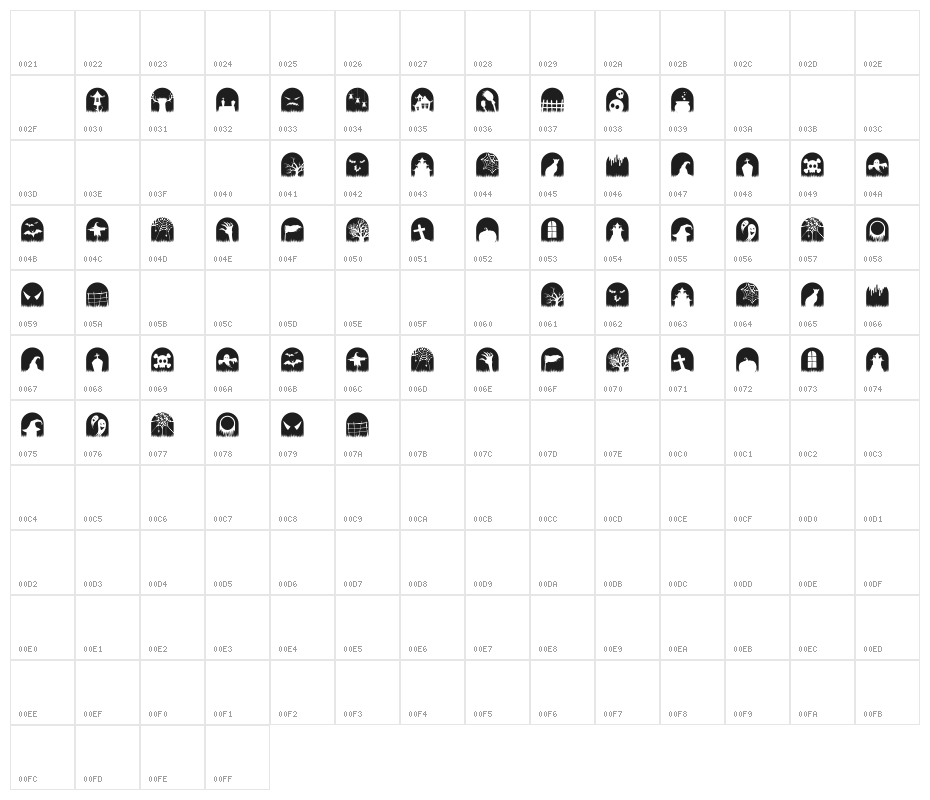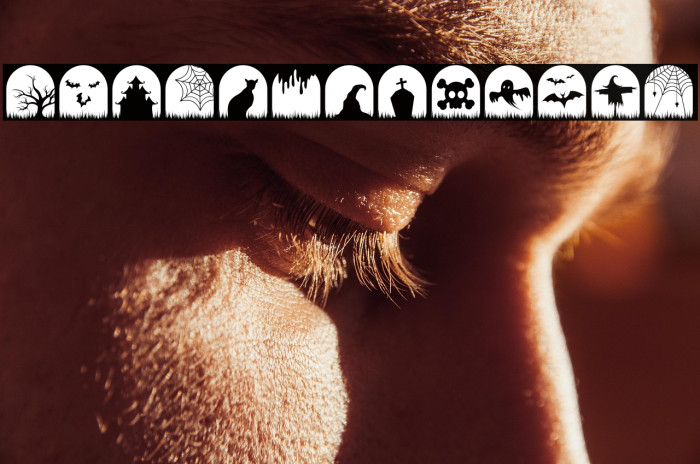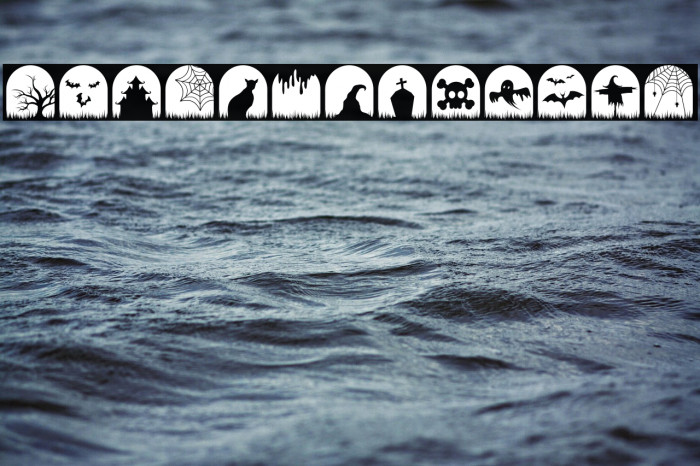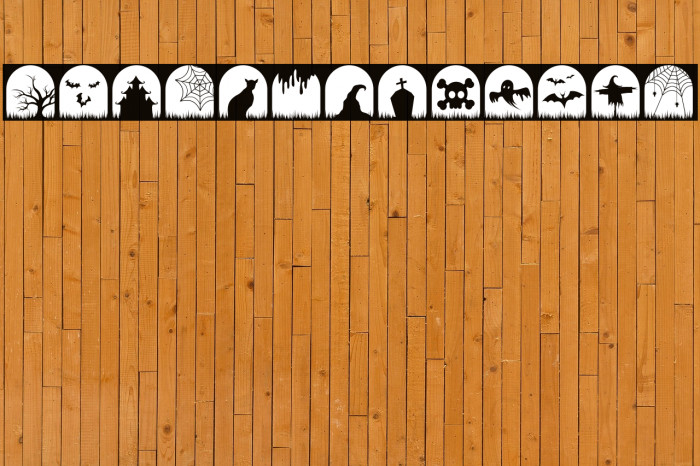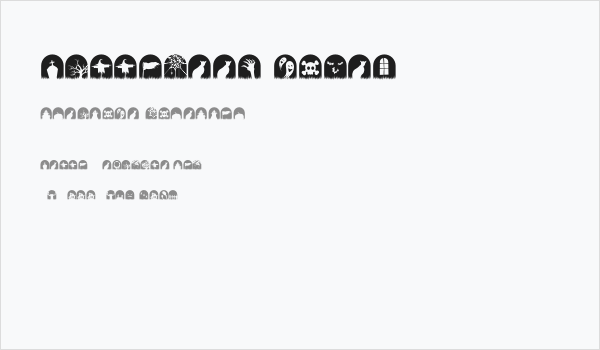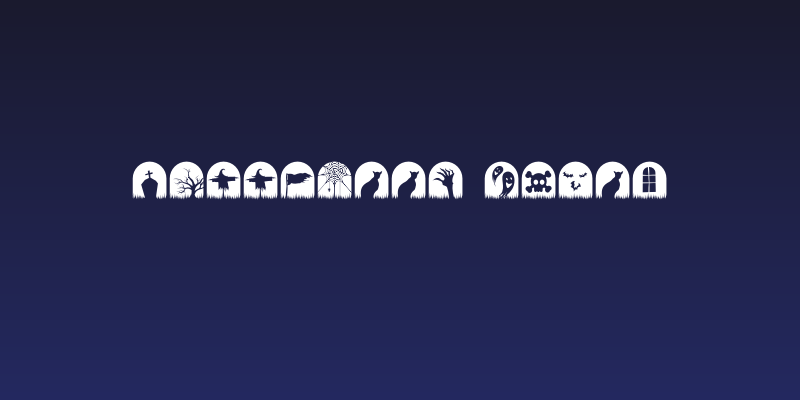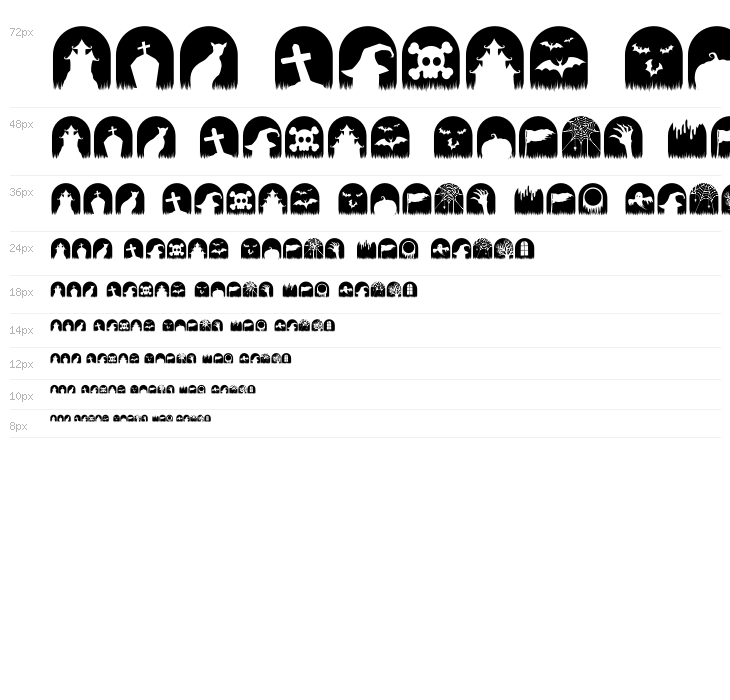
Halloween Vibes Font
This decorative font captures the essence of Halloween with its spooky and playful design. Each character is uniquely crafted to include Halloween-themed elements such as bats, ghosts, spiders, and haunted houses. The silhouettes are set against a backdrop of grass, adding an eerie yet whimsical touch. The font is highly stylized, making it perfect for seasonal projects that require a fun and festive atmosphere. The characters are bold and eye-catching, ensuring they stand out in any design. This font is ideal for creating Halloween party invitations, themed posters, or any project that needs a touch of spooky charm.
Use CaseHeadlines, Logos, Decorative Text
Proposed ProjectsHalloween party invitations, themed posters, holiday decorations, greeting cards, and festive banners.